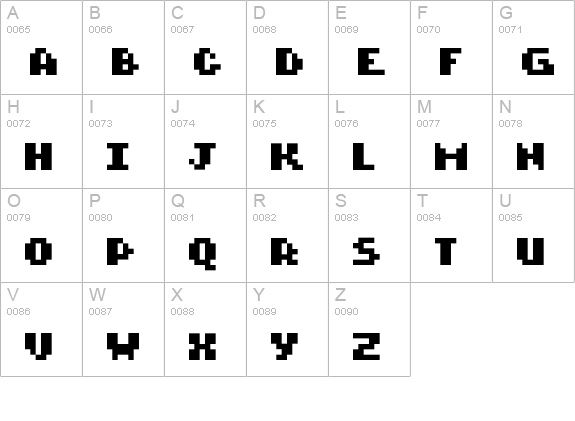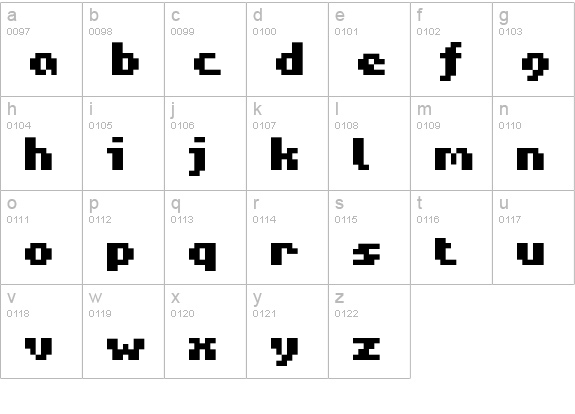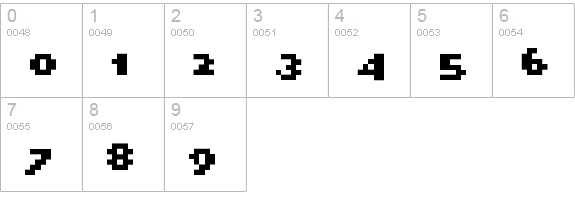
ROTORanti-EXPBold Font Details
Introducing ROTORanti-EXPBold font, a bold and dynamic typeface designed to make a powerful statement in your designs. This font is perfect for headers, titles, and branding projects that demand attention. With its unique anti-EXP style, ROTORanti-EXPBold offers a modern twist on traditional bold fonts, making it stand out from the crowd. What's even better is that ROTORanti-EXPBold is available for free download at FontsMarket.com. This means you can add this eye-catching font to your collection without any cost, allowing you to elevate your designs without breaking the bank. Don't miss out on the opportunity to enhance your projects with the striking ROTORanti-EXPBold font - download it now for free!